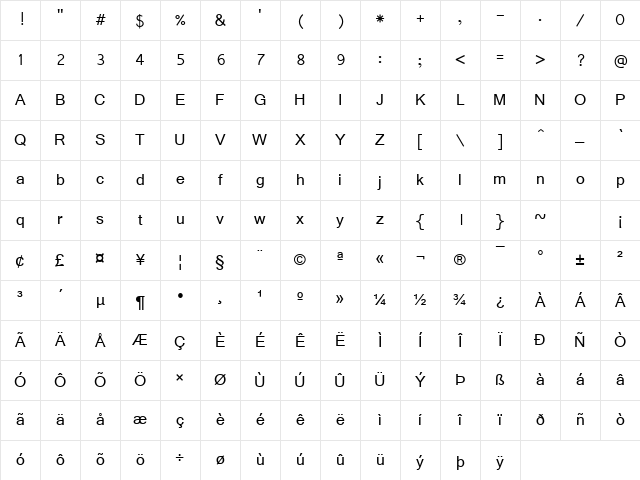
Vrinda Regular
Designer: Raghunath Joshi (Type Director), Vinay Saynekar
Complete Vrinda Regular glyph index. Displaying only characters natively supported by Vrinda Regular font.
Design Context for Vrinda
Vrinda is a composed and adaptable typeface that performs quietly and consistently across a wide range of design contexts.